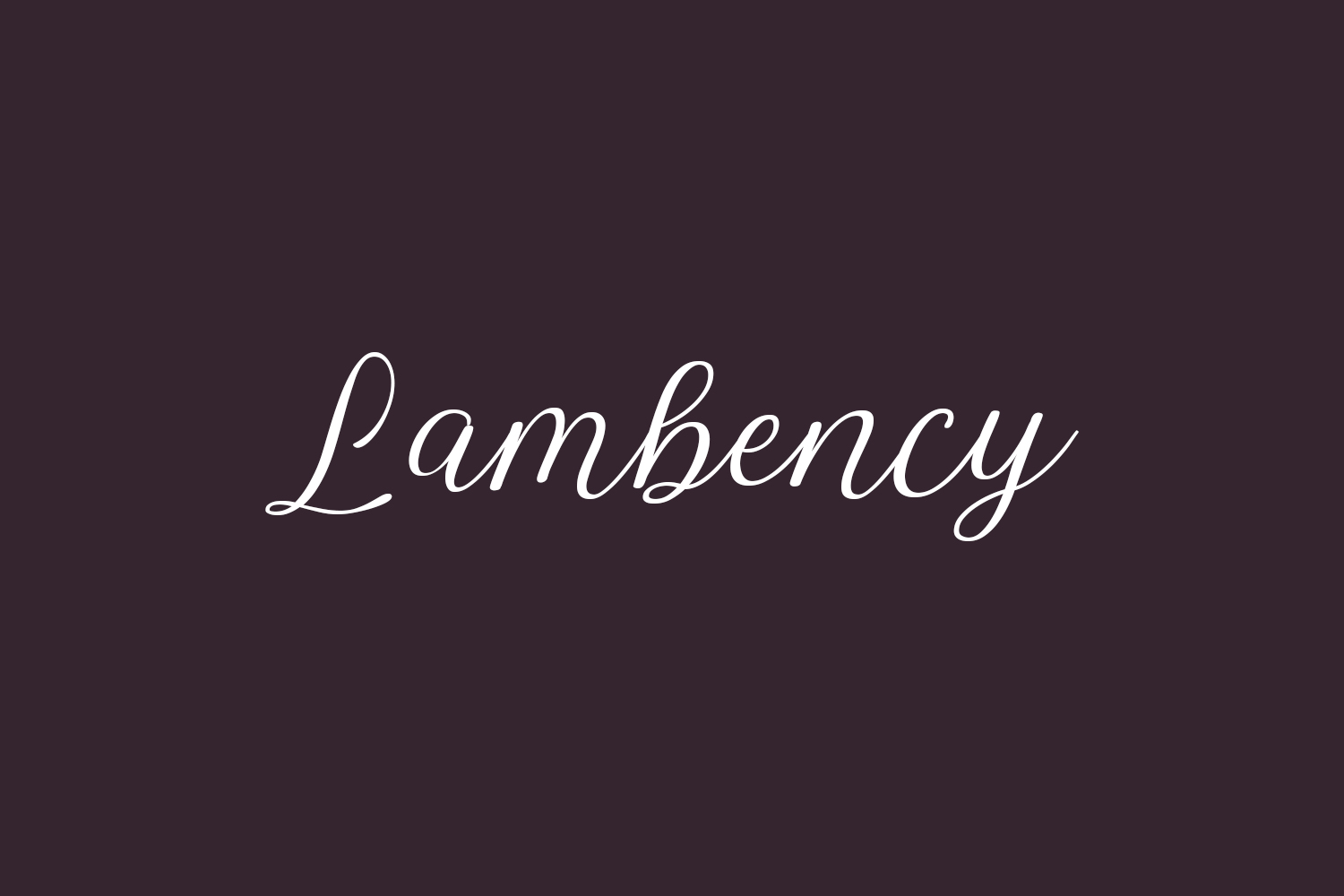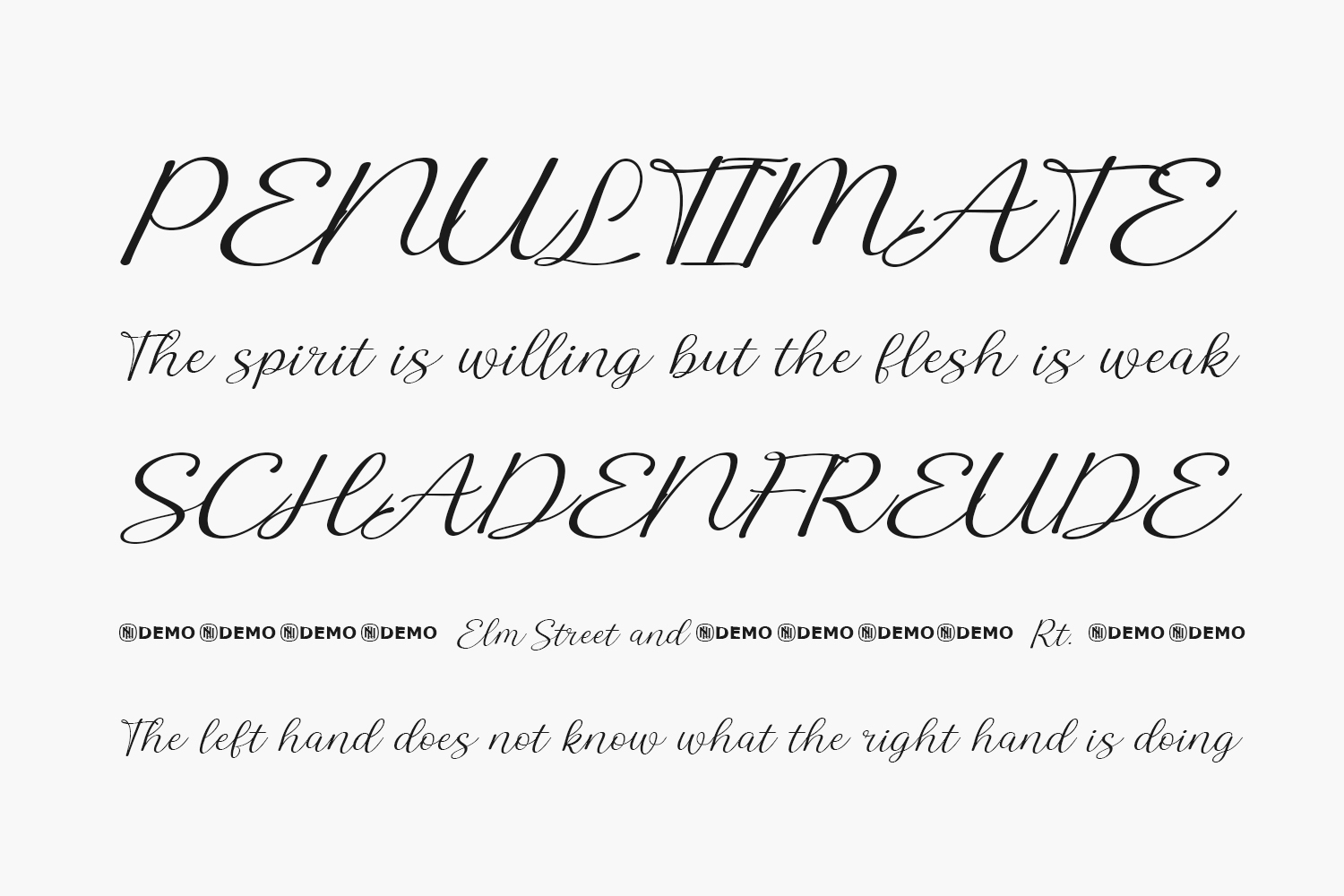
Lambency Free Font presents a contemporary script font imbued with grace and organic flair. Each character features both a leading and trailing flourish, adding a touch of sophistication. Ideal for occasions like wedding invitations, inspirational quotes, branding, logos, and more. Crafted to enhance your content with elegance and style. Lambency Free Font is a demo and free for personal use only. Please purchase the full version for commercial use.
Designed by Niskala Huruf